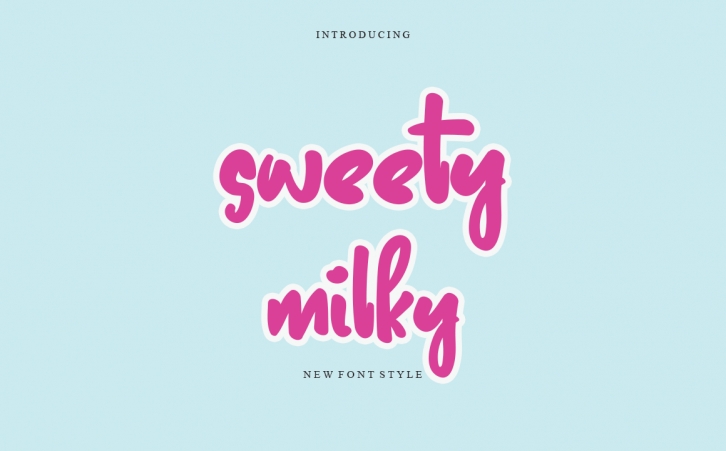
Sweety Milky is a chic and versatile script font. This font was particularly crafted for those who need a beautiful and refreshing look to their designs.Â